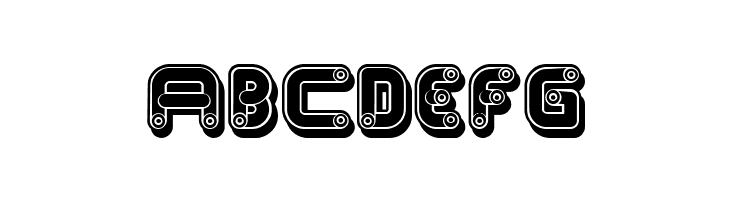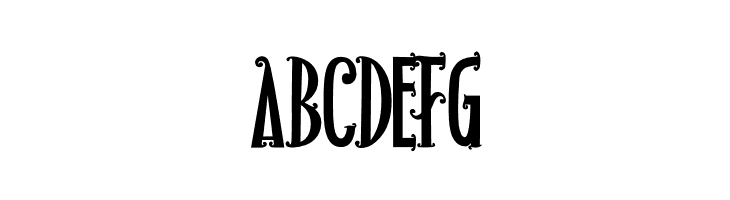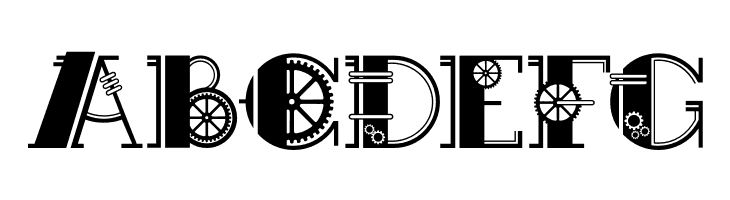
A bold, mechanical font with interconnected circular and linear elements.
A bold, decorative font with a mechanical, futuristic aesthetic.
A bold, mechanical-themed decorative font with intricate geometric detailing.
A bold, mechanical font with hollow interiors and a striking industrial design.
A bold, mechanical-themed decorative font with circular cutouts and connecting lines.
A steampunk-inspired font with intricate machinery and industrial design elements.
A bold, mechanical-inspired font with a futuristic and industrial design.
A bold, playful font with a mechanical, decorative style.
A bold, mechanical font with an industrial, tech-inspired design.
A decorative, tech-inspired font with bold outlines and intricate inner details.
A whimsical and decorative font with playful serifs and artistic details.
A playful, mousetrap-themed decorative font with bold, creative characters.
A bold, decorative font with a mechanical, steampunk aesthetic.
A bold, decorative font with intricate gear motifs and mechanical themes.